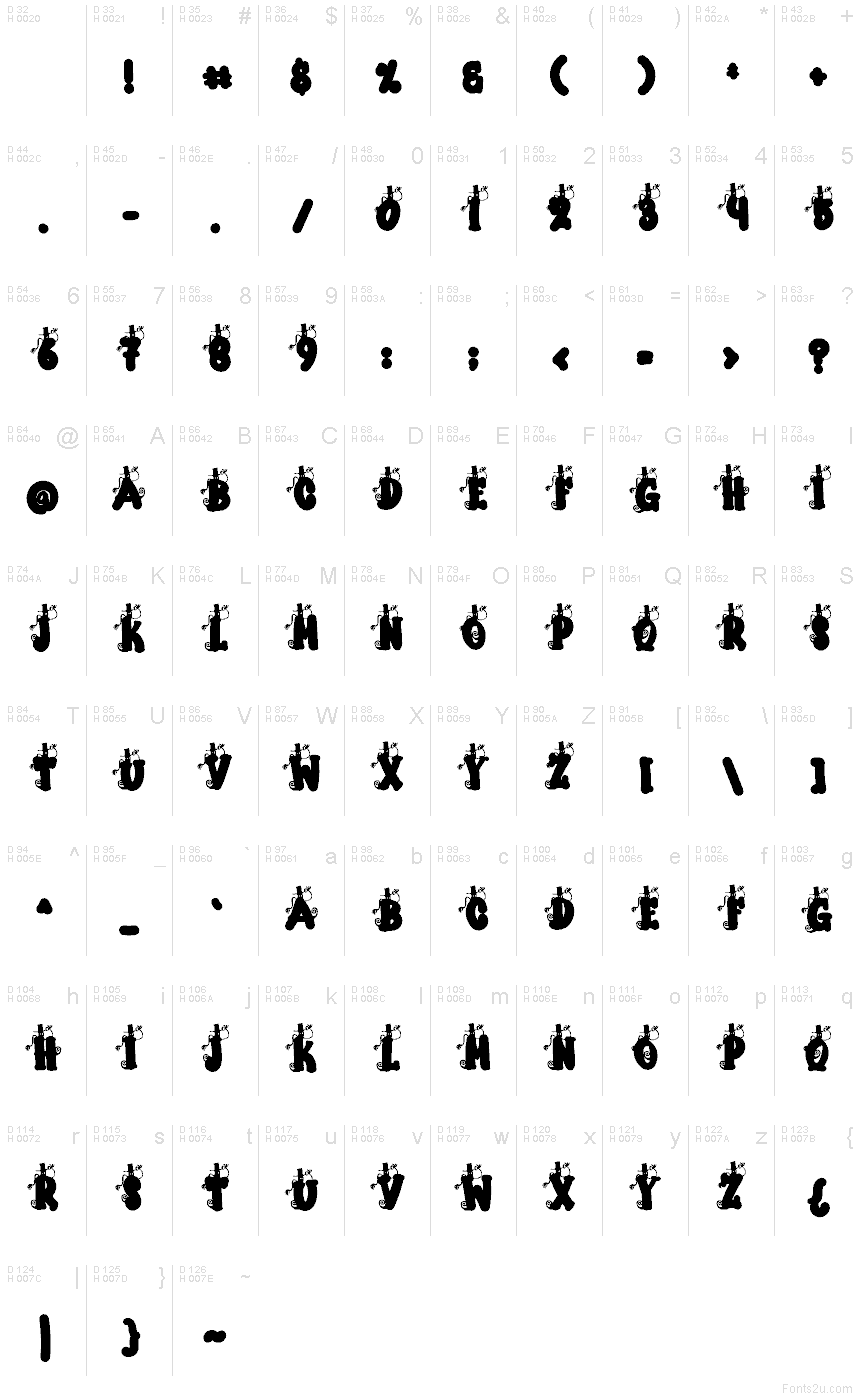
Spooky Barbiey
Spooky Barbiey font by Bilqis Studio is a free Halloween cartoon display font. Bold, inky letterforms puff out like candy shapes while curly tendrils, tiny critter silhouettes, and playful drips add that kid-safe goosebump vibe. It lands right between spooky and sweet—high-contrast, chunky, and easy to read at a glance—so your headline screams “boo!” without scaring off the fun.
Using Spooky Barbiey, you can nail party invites, trick-or-treat posters, classroom flyers, stickers, social posts, candy labels, and YouTube thumbnails. This free font shines when you set it large with a touch of extra tracking. For supporting text, pair it with a clean geometric sans to keep the spotlight on those bouncy, haunted shapes.